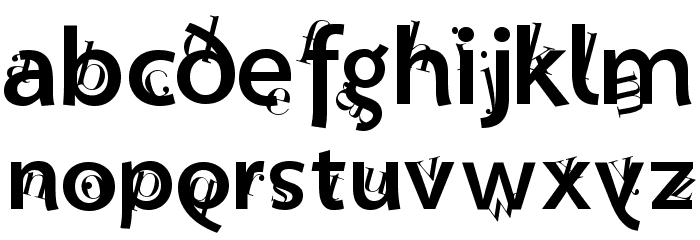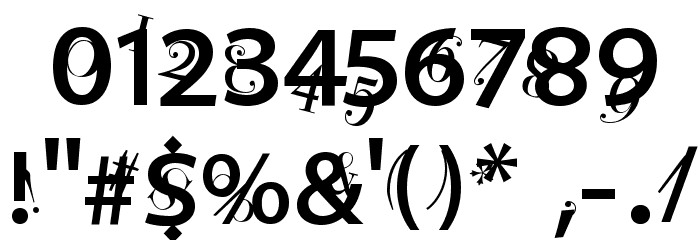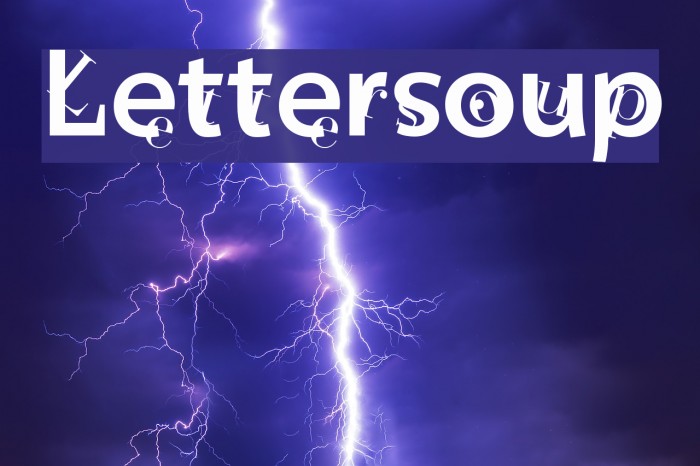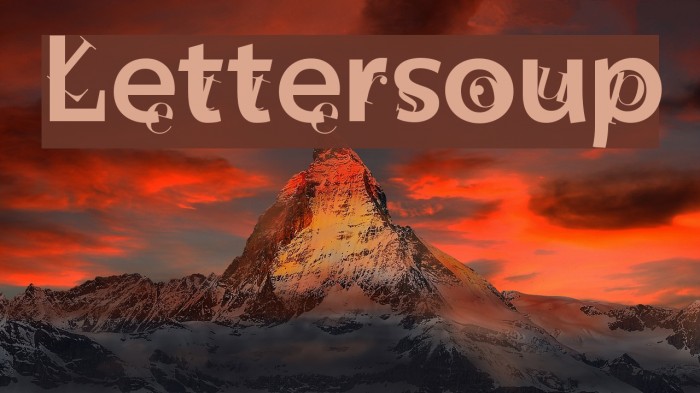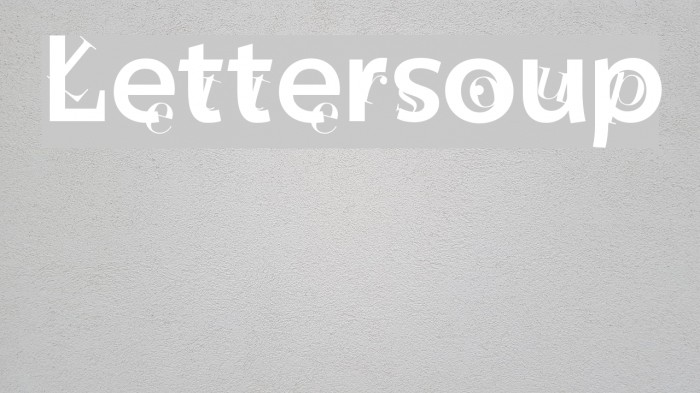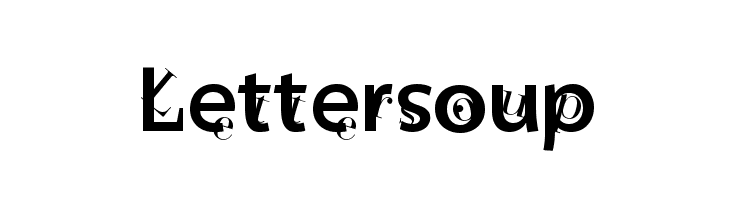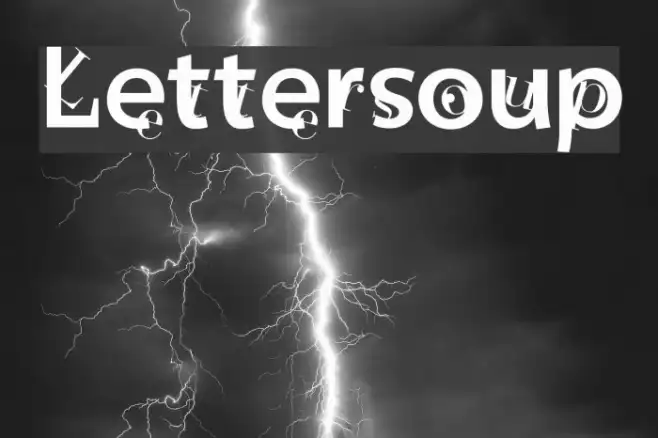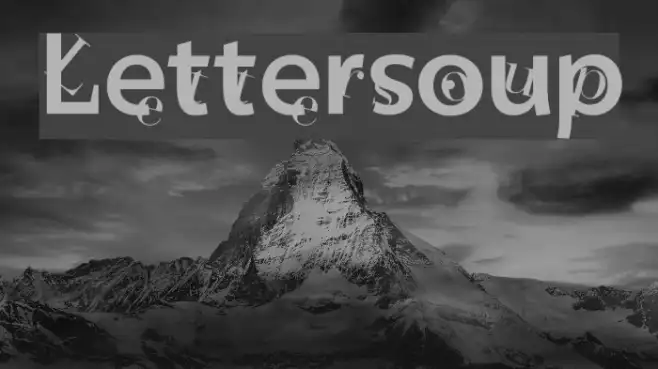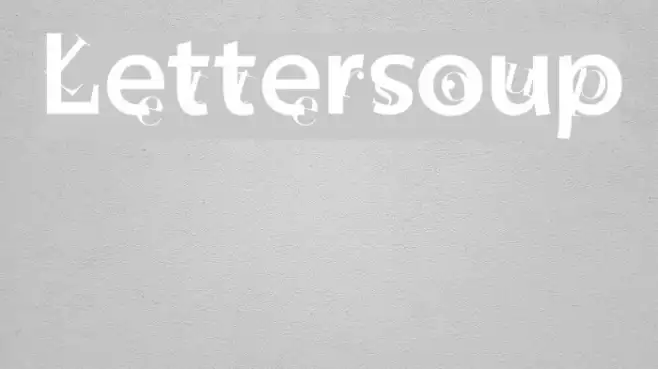
Lettersoup Font
This font features a playful and chaotic design, with each character appearing as if it has been randomly assembled from various parts. The letters are bold and have a strong presence, with exaggerated serifs and strokes that create a sense of movement and energy. The overall look is whimsical and artistic, making it stand out in any context. The numbers and special characters follow the same eclectic style, ensuring consistency across all elements. This font is ideal for creative projects that require a unique and eye-catching typeface.
A playful and chaotic font with bold, eclectic characters.
- Proposed Projects: Ideal for artistic posters, creative branding, and unique editorial designs.
- Overall Style: Whimsical